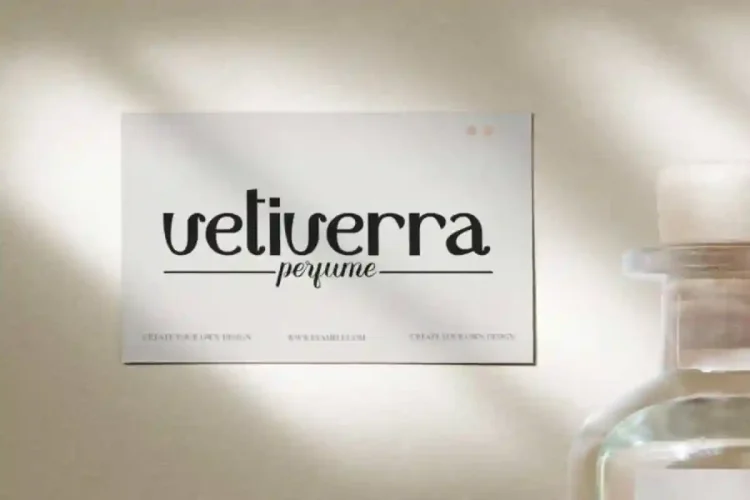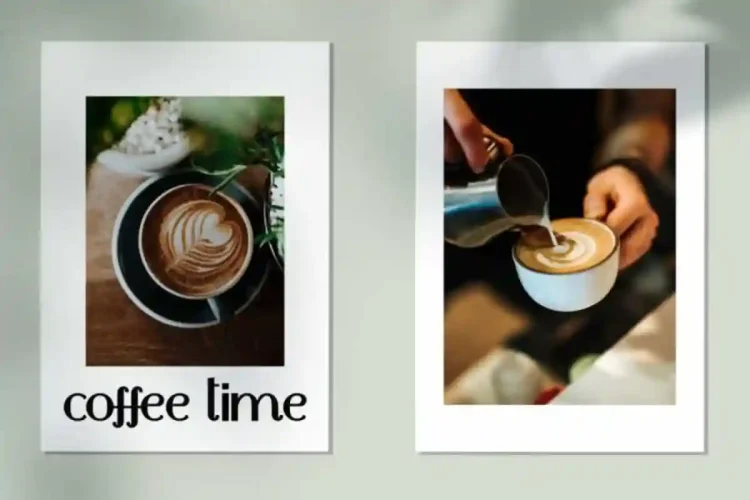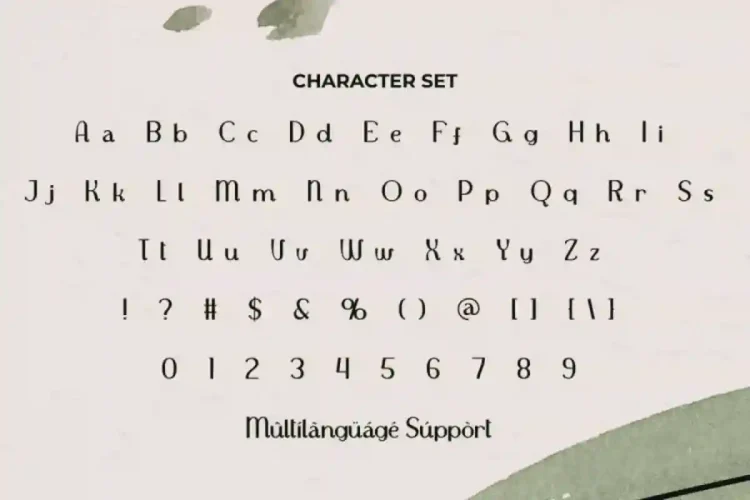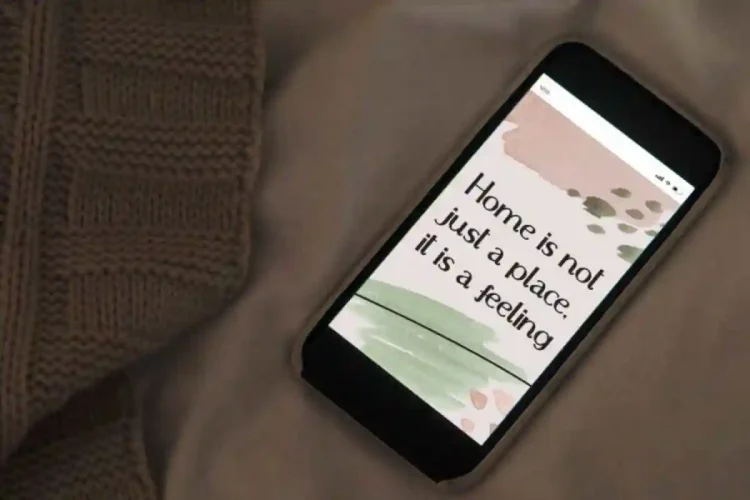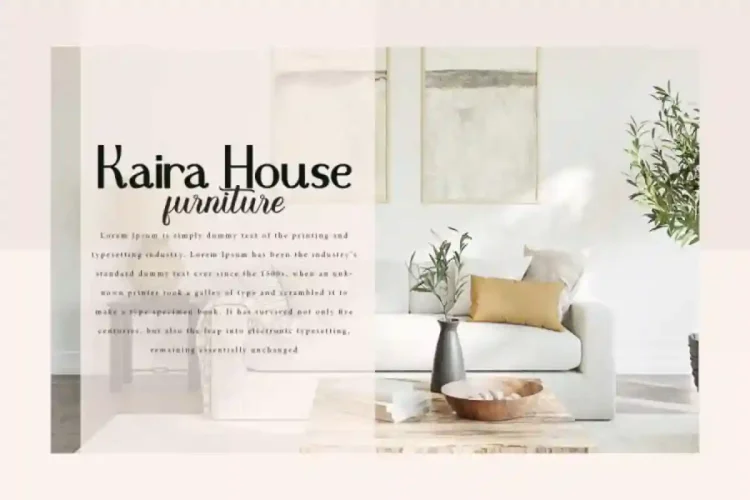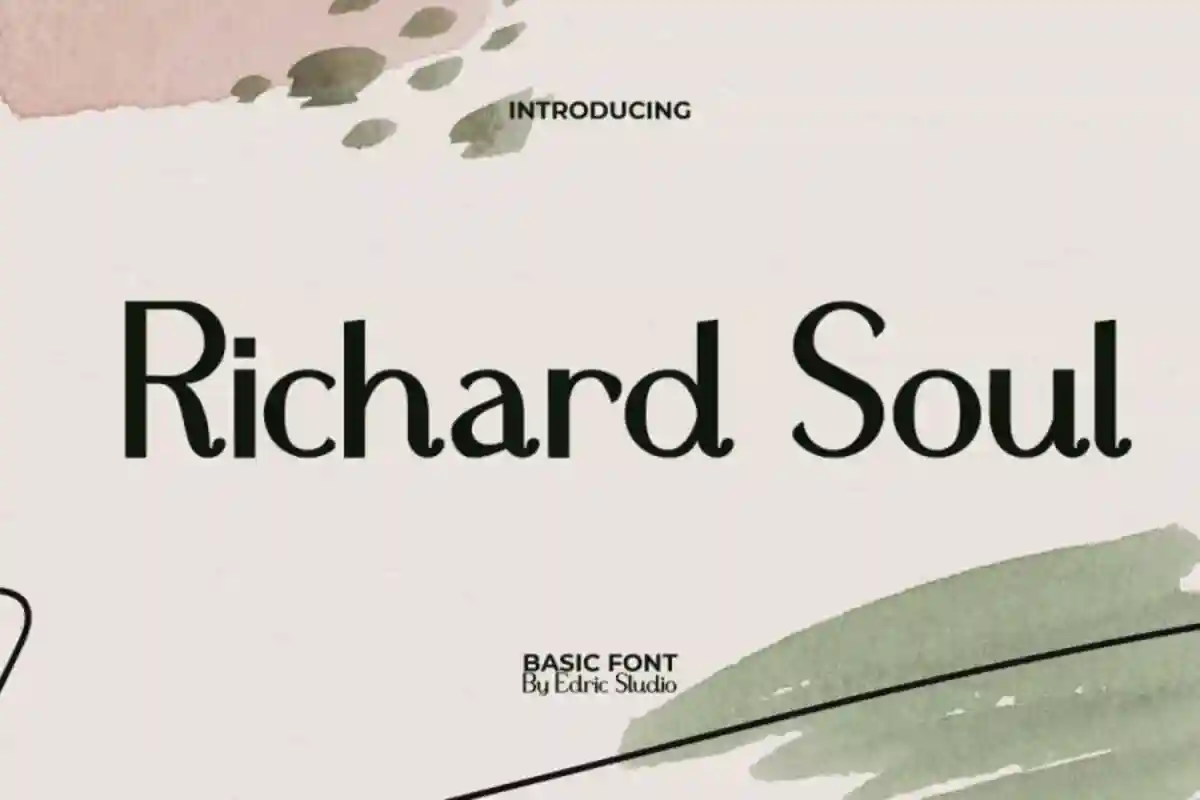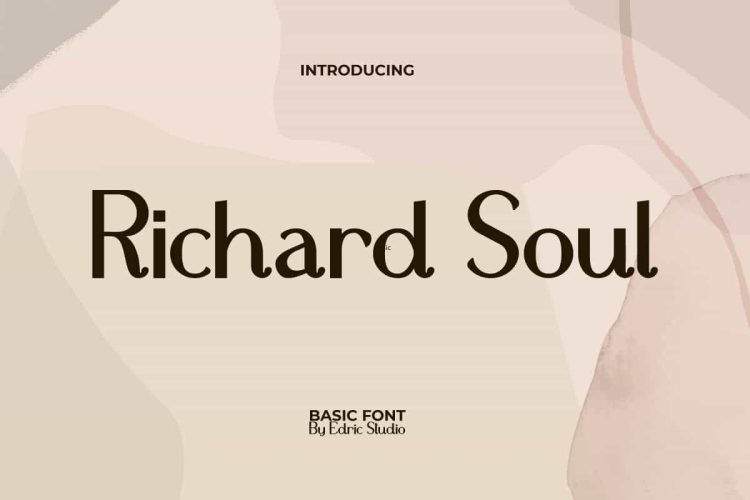
Richard Soul Modern Font is a stylish serif display font by Edric Studio. This versatile font blends modern charm with timeless readability, making it perfect for a wide range of creative projects. Its clean, eye-catching style allows it to stand out on its own or pair beautifully with other fonts, giving you endless design possibilities.
Richard Soul Modern Display Font comes with full set of Uppercase and Lowercase Basic Characters, Number, a large range of Punctuation, and Symbol. It has modern characters set, perfectly managed with well spaced and kerning. From logos and branding to signage, invitations, labels, posters, merchandise, and websites, this font will elevate your design with professionalism and style.